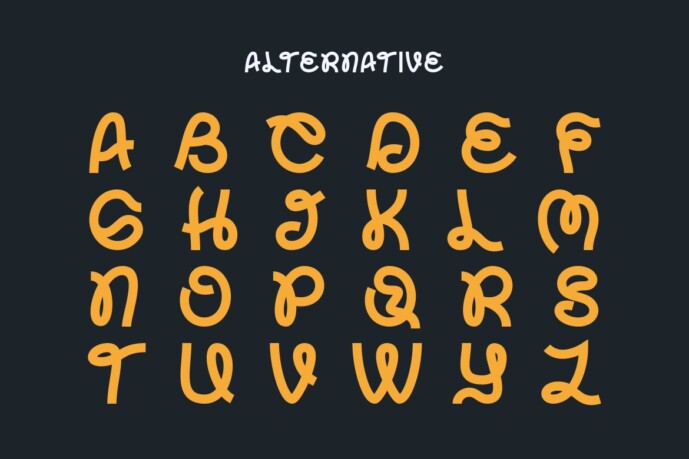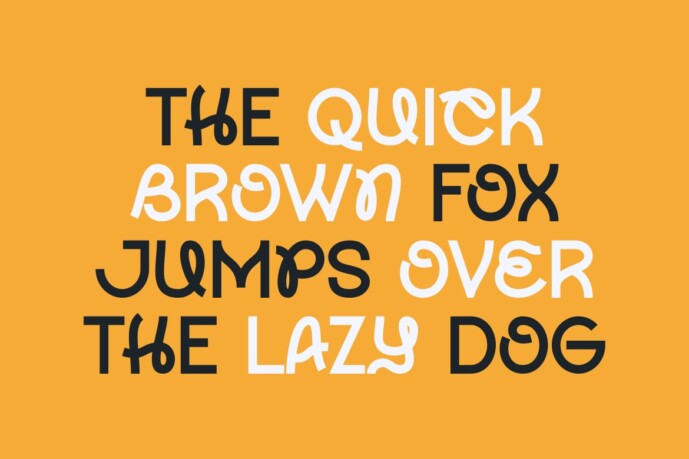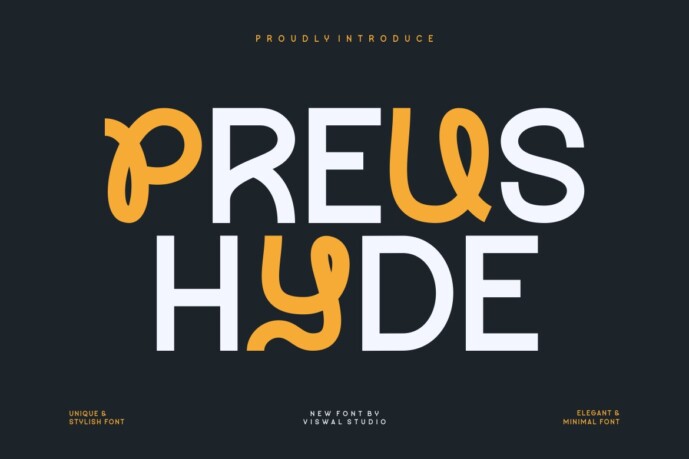
Preus Hyde Font
Designer: Viswal
Preus Hyde Font is suitable for badge, labels, logo, branding, magazine, poster and etc. Our fonts have Uppercase & Lowercase, Numeral & Punctuation, Multilingual support and Opentype Features. For Amazing designs you can mix with other fonts as a complement.